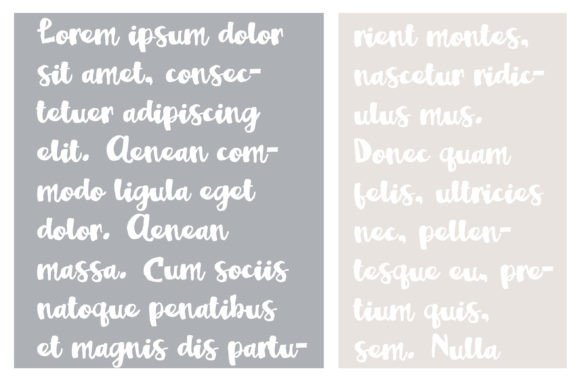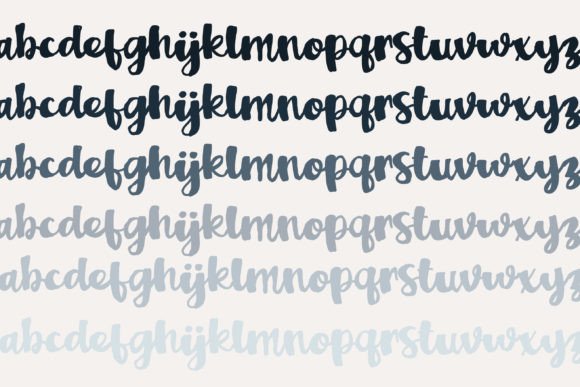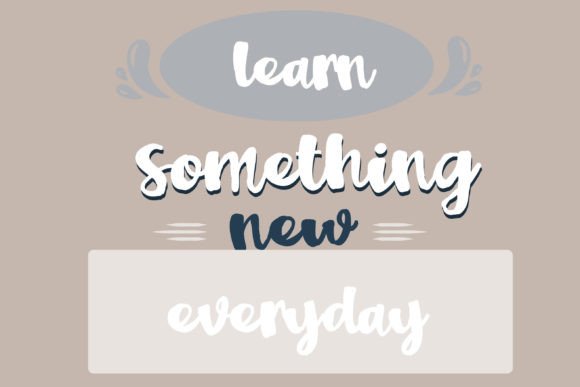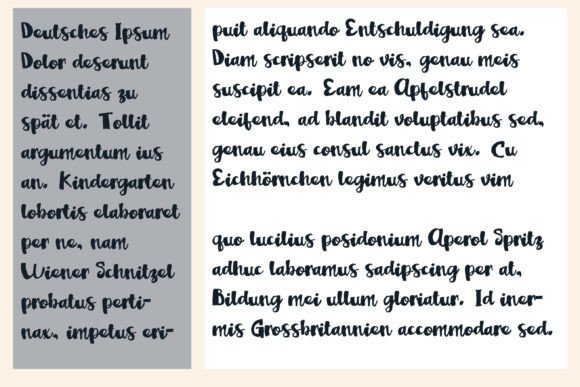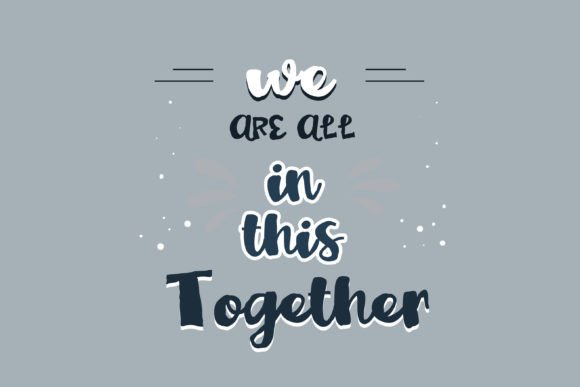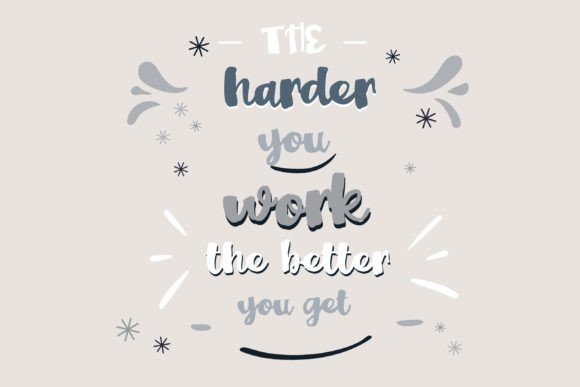
Introducing Disparage Font: Elevate Your Creations with Trendy and Stylish Hand-Written Cursive Script
Are you a designer or crafter looking for a unique and stylish font to take your creations to the next level? Look no further than Disparage Font, a beautiful hand-written cursive script that is sure to impress. With its print-like uppercase and subtle texture, this trendy font is perfect for a wide range of projects, from branding and advertising to crafting and DIY.
What is Disparage Font?
Disparage Font is a carefully crafted hand-written cursive script that boasts a unique and stylish aesthetic. Its print-like uppercase letters give it a touch of sophistication, while its cursive lowercase letters add a playful and whimsical feel. The font also features a subtle texture that gives it a organic and hand-crafted look.
Key Features of Disparage Font
- Hand-written cursive script: Disparage Font is a true hand-written font, with each letter carefully crafted to give it a unique and personal feel.
- Print-like uppercase: The uppercase letters in Disparage Font have a print-like quality, giving it a touch of sophistication and elegance.
- Subtle texture: The font features a subtle texture that gives it a organic and hand-crafted look.
- Trendy and stylish: Disparage Font is a trendy and stylish font that is sure to elevate your creations and make them stand out.
Uses for Disparage Font
Disparage Font is a versatile font that can be used for a wide range of projects, including:
- Branding and advertising: Use Disparage Font to create eye-catching logos, advertisements, and marketing materials that will help your brand stand out.
- Crafting and DIY: Add a personal touch to your crafting and DIY projects with Disparage Font, perfect for making handmade cards, gift tags, and more.
- Stationery and invitations: Use Disparage Font to create beautiful and stylish stationery, invitations, and greeting cards.
- Digital design: Disparage Font is perfect for digital designers looking to add a touch of elegance and sophistication to their designs.
Tips for Using Disparage Font
Here are a few tips for getting the most out of Disparage Font:
- Use it sparingly: Disparage Font is a statement font, so use it sparingly to add emphasis and interest to your designs.
- Pair it with other fonts: Disparage Font pairs well with a variety of other fonts, so don’t be afraid to experiment and find the perfect combination for your project.
- Experiment with colors and textures: Disparage Font looks great in a variety of colors and textures, so don’t be afraid to get creative and try out different combinations.
Disparage Font is a beautiful and stylish hand-written cursive script that is sure to elevate your creations and make them stand out. With its print-like uppercase and subtle texture, this trendy font is perfect for designers and crafters looking to add a touch of elegance and sophistication to their projects. So why wait? Download Disparage Font today and start creating something truly special.
Whether you’re a seasoned designer or a crafty DIY enthusiast, Disparage Font is a must-have font that is sure to inspire and delight. So go ahead, get creative, and see what amazing things you can create with Disparage Font!